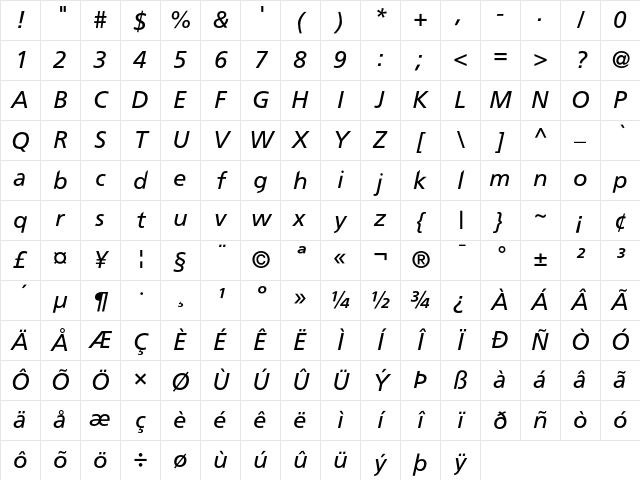
FreewayRomanItalic Regular
Complete FreewayRomanItalic Regular glyph index. Displaying only characters natively supported by FreewayRomanItalic Regular font.
Design Context for FreewayRomanItalic
FreewayRomanItalic is a composed and adaptable typeface that performs quietly and consistently across a wide range of design contexts. The slanted form adds forward momentum and visual energy.
Pro Tip: Use FreewayRomanItalic for emphasis, pull quotes, and subheadings where its slanted energy can add rhythm to the layout.